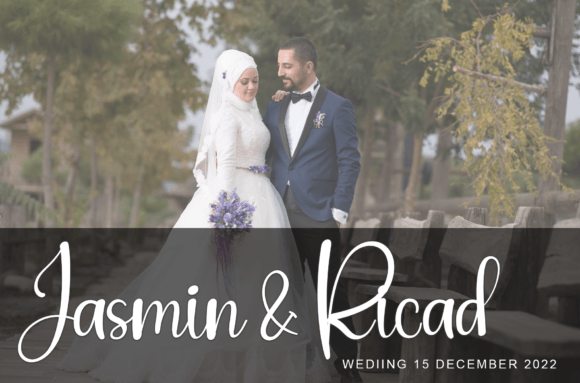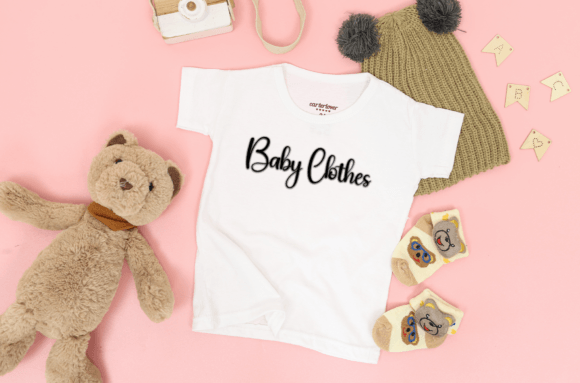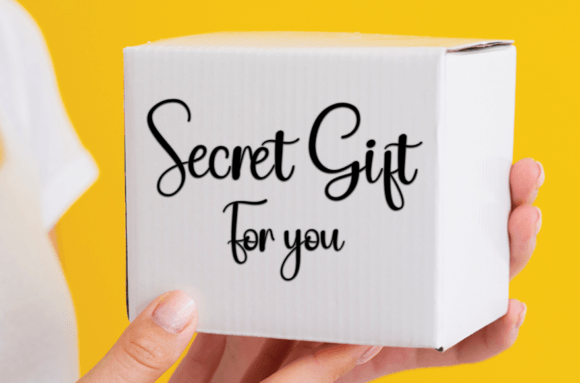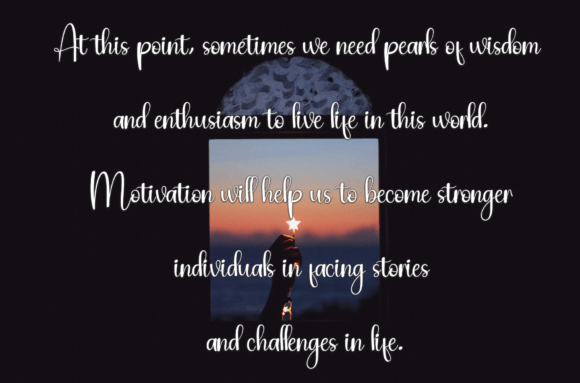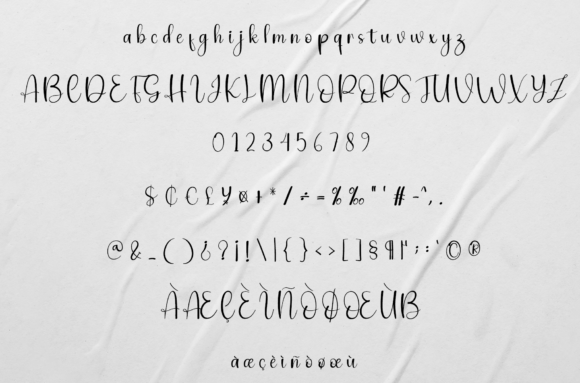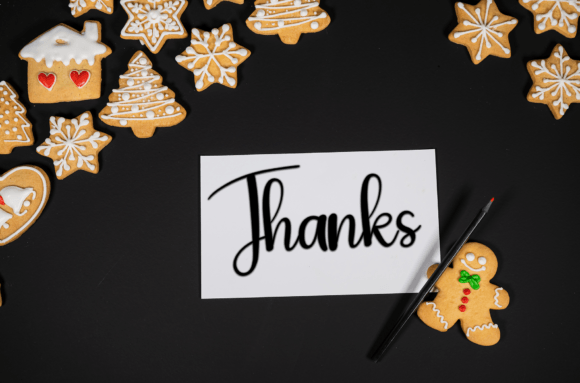
Introducing the Grinch Font: A Fun and Friendly Handwritten Delight
Are you tired of using the same old boring fonts for your crafts, digital designs, presentations, and greeting cards? Look no further! The Grinch Font is here to bring a dash of fun and personality to your projects. This charming handwritten font is perfect for anyone looking to add a touch of whimsy and friendliness to their designs.
What is the Grinch Font?
The Grinch Font is a unique and playful handwritten font that is sure to capture the hearts of designers, crafters, and anyone who loves to create. Its fun and friendly vibe makes it an excellent choice for a wide range of projects, from DIY crafts and digital designs to presentations and greeting cards.
Why You’ll Love the Grinch Font
So, what makes the Grinch Font so special? Here are just a few reasons why it’s about to become your go-to font:
- Versatility: The Grinch Font is incredibly versatile, making it perfect for a wide range of projects, from formal to informal, and from digital to print.
- Readability: Despite its playful nature, the Grinch Font is surprisingly easy to read, making it perfect for both headlines and body text.
- Uniqueness: The Grinch Font has a distinct personality that will set your designs apart from the crowd.
- Ease of use: This font is incredibly easy to use, even for those who are new to design or crafting.
Whether you’re a professional designer or a crafter who loves to make things, the Grinch Font is an excellent addition to your toolkit. Here are some ideas for how you can use this fantastic font:
- Crafts: Use the Grinch Font to add a personal touch to your handmade crafts, such as cards, gift tags, and scrapbook pages.
- Digital design: Add a playful touch to your digital designs, such as social media graphics, blog posts, and email newsletters.
- Presentations: Make your presentations more engaging and fun with the Grinch Font.
- Greeting cards: Create one-of-a-kind greeting cards for special occasions, such as birthdays, holidays, and graduations.
Tips for Using the Grinch Font
To get the most out of the Grinch Font, here are a few tips to keep in mind:
- Experiment with colors: The Grinch Font looks great in a variety of colors, so don’t be afraid to experiment and find the perfect hue for your project.
- Mix and match: Combine the Grinch Font with other fonts to create a unique and eye-catching design.
- Play with sizes: Use different font sizes to add visual interest and emphasis to your design.
In conclusion, the Grinch Font is a fun and friendly handwritten font that is perfect for designers, crafters, and anyone who loves to create. Its versatility, readability, uniqueness, and ease of use make it an excellent choice for a wide range of projects. So why not give it a try and see how it can bring a touch of whimsy and personality to your designs?
Whether you’re a seasoned designer or just starting out, the Grinch Font is sure to become a favorite in your toolkit. So go ahead, get creative, and have fun with the Grinch Font!